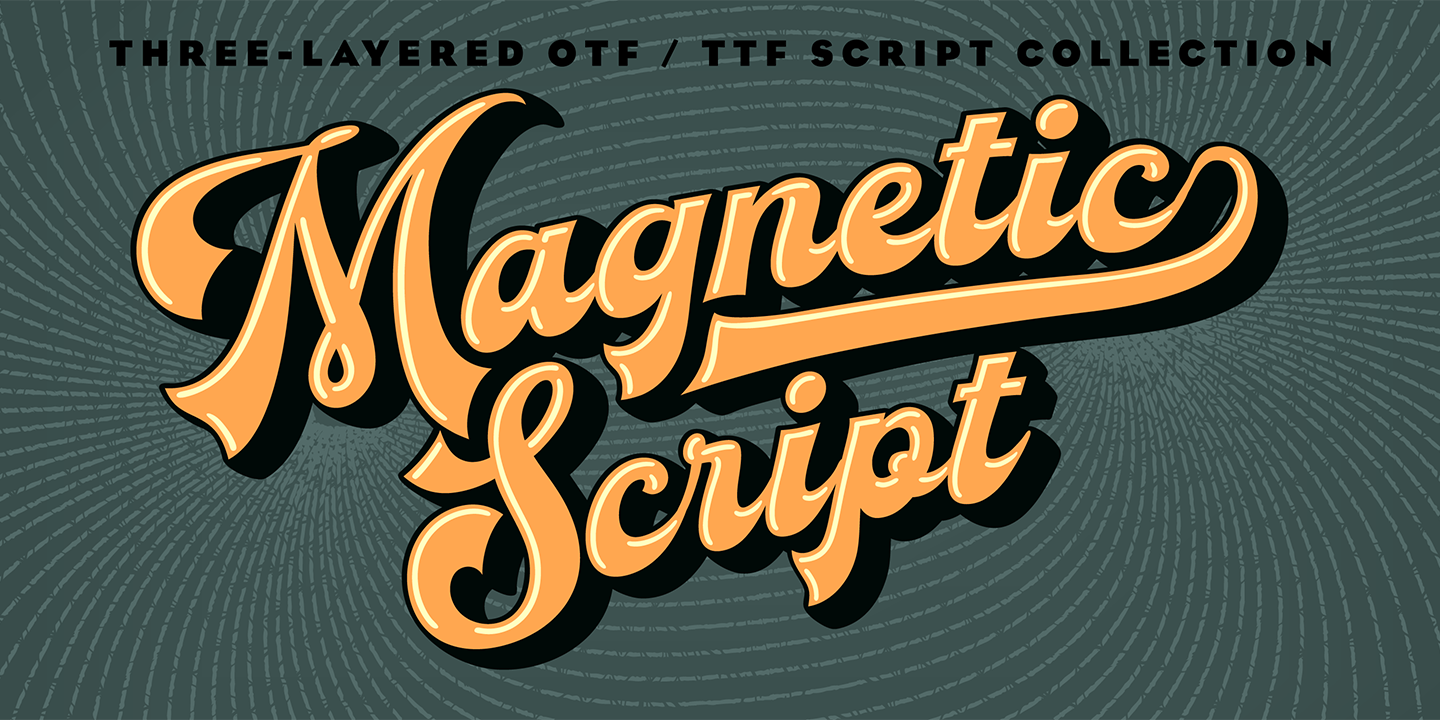
Magnetic Script Font excels in luxury brand signatures, elegant wedding invitations, premium product packaging, high-end fashion labels, sophisticated personal stationery, upscale restaurant branding, exclusive event materials, boutique hotel communications, fine jewelry catalogs, and prestigious corporate identity where flowing, magnetic typography creates irresistible visual attraction and sophisticated elegance.
What makes Magnetic Script Font exciting is its captivating ability to draw viewers into elegant script passages through fluid letterforms that possess an almost magnetic pull and sophisticated charm. This font features gracefully flowing characters with smooth connections, elegant flourishes, and refined proportions that create seamless reading experiences while maintaining luxurious visual appeal. The sophisticated styling and irresistible personality make it ideal for applications requiring elegance, attraction, and the compelling appeal of premium handwritten aesthetics.
Magnetic Script Font family includes Regular weight with comprehensive script functionality, plus decorative swashes, ornamental capitals, and elegant connecting forms that enhance the sophisticated calligraphic experience. The family also features alternate characters, stylistic sets, and contextual ligatures that create natural handwritten flow. Each element maintains the font's magnetic character while providing extensive options for elegant script typography and luxury design applications.
The Magnetic Script Font Free Download provides designers and luxury brands with access to typography that embodies sophisticated attraction and elegant magnetism. This font's compelling approach makes it perfect for high-end branding, luxury communications, and premium applications where elegance and visual magnetism are paramount. Its versatility extends to digital luxury platforms, premium websites, and contemporary elegant design applications requiring irresistible script appeal.
Magnetic Script Font supports comprehensive character coverage including stylistic alternates, decorative swashes, and elegant ligatures necessary for professional script typography and luxury communications. The font's carefully calibrated metrics ensure smooth script flow and natural connections while maintaining the magnetic character that defines premium script typography. Its scalability preserves the elegant script details from small luxury labels to large prestigious signage applications.
The font's captivating presence makes it particularly effective for luxury branding, premium communications, and elegant applications where sophistication and visual magnetism are essential for creating memorable impressions. Whether designing exclusive invitations, luxury product launches, or premium brand identities, Magnetic Script Font delivers irresistible script typography that attracts attention while conveying sophisticated elegance and creating lasting connections with discerning audiences through its compelling magnetic appeal.